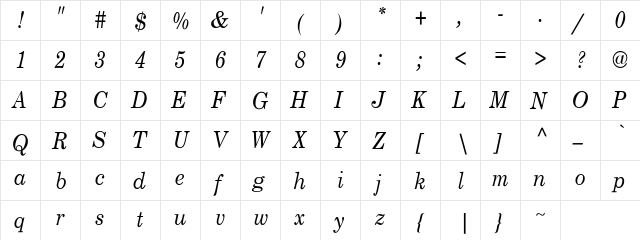
NewCenturySch 8 Regular
NewCenturySch 8 is a composed and adaptable typeface that performs quietly and consistently across a wide range of design contexts.